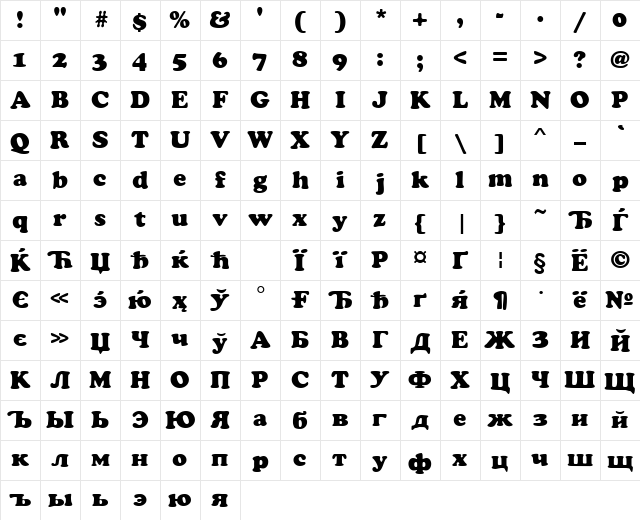
Complete CyrillicCooper Normal glyph index. Displaying only characters natively supported by CyrillicCooper Normal font.
CyrillicCooper is a composed and adaptable typeface that performs quietly and consistently across a wide range of design contexts.